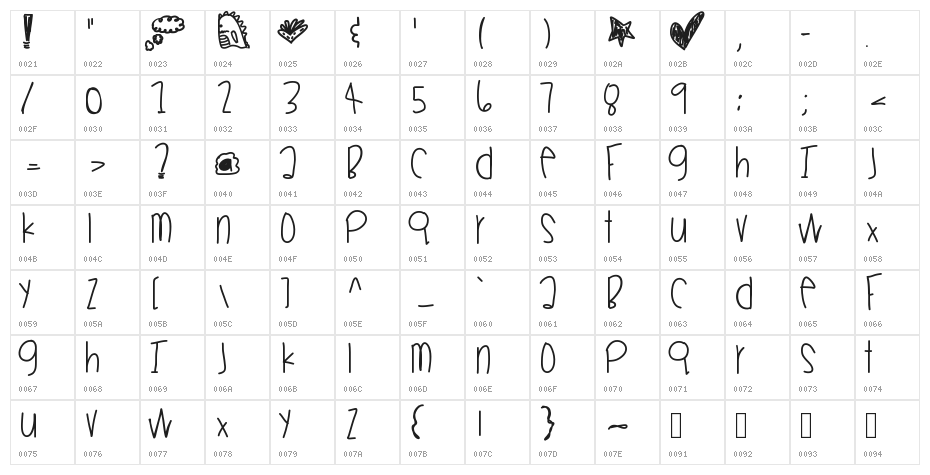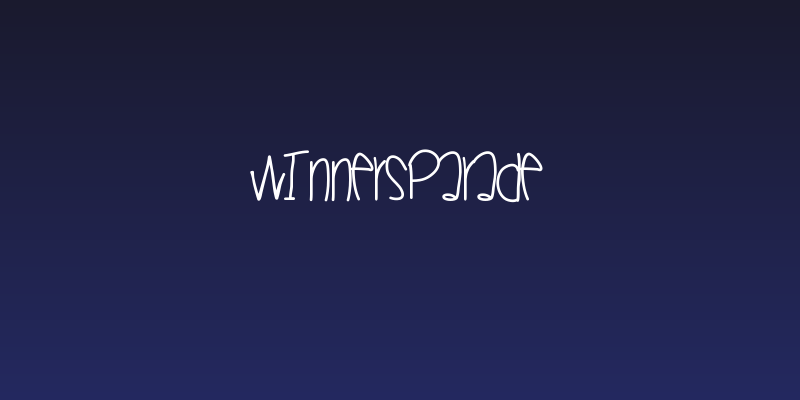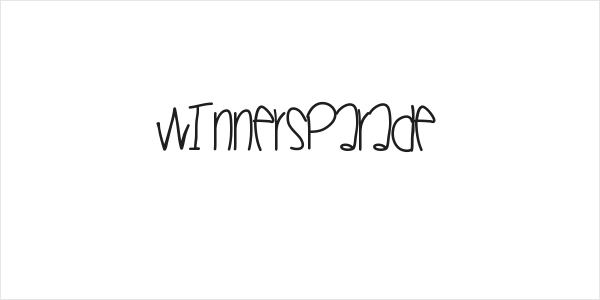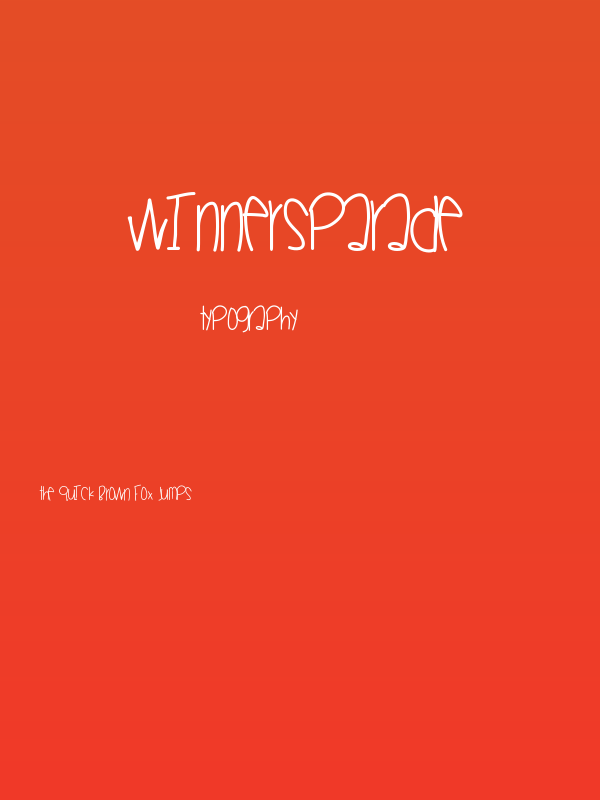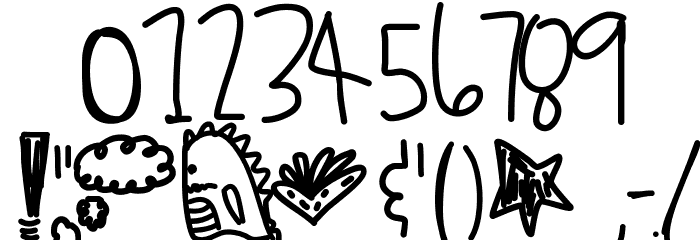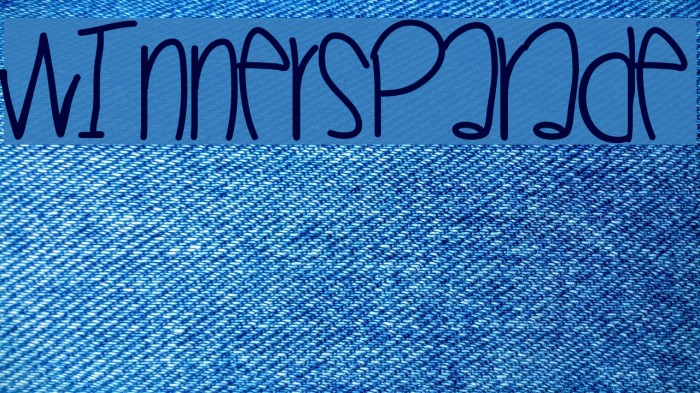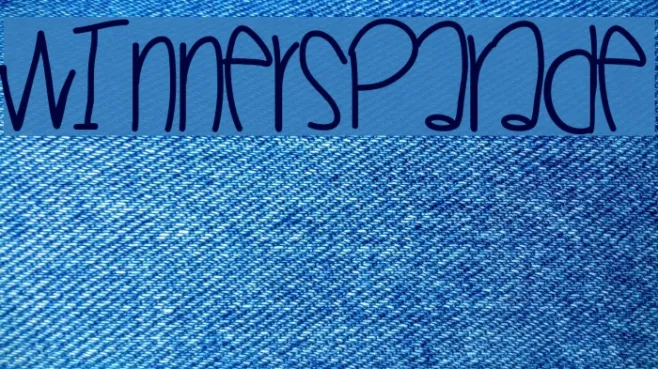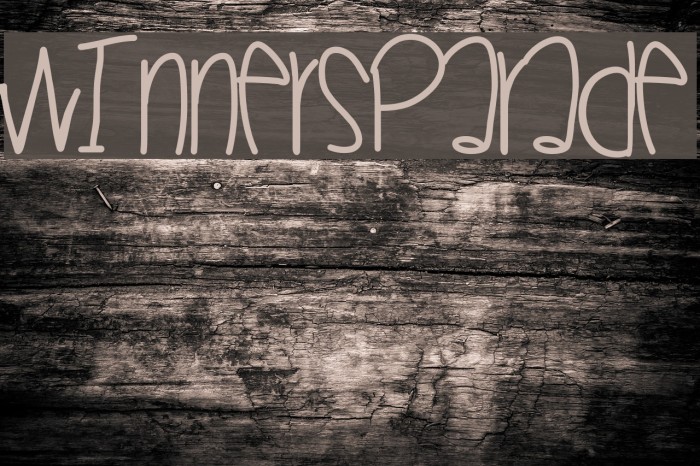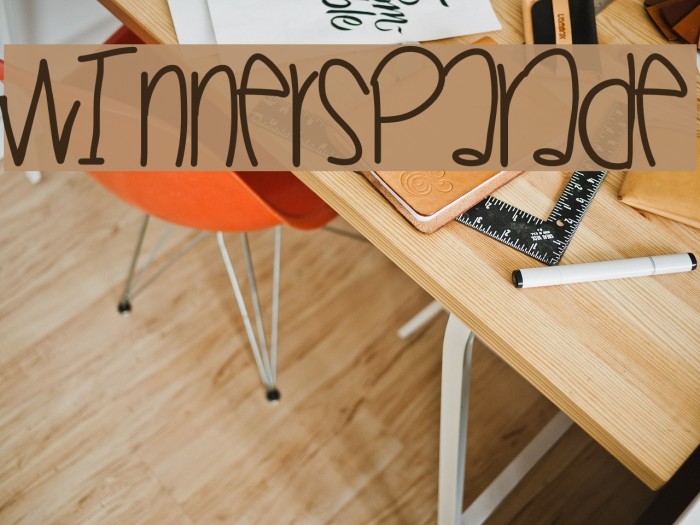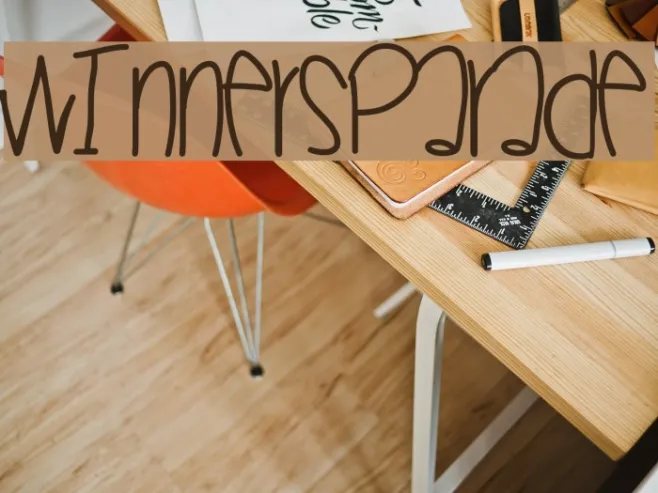
WinnersParade Font
WinnersParade Description
This playful and whimsical font features tall, narrow characters with a hand-drawn appearance. The letters have a casual, informal style, with slightly irregular strokes that add to its charm. The uppercase and lowercase letters maintain a consistent height, contributing to a cohesive look. Numbers and special characters are designed with the same playful aesthetic, making them suitable for creative projects. The font's unique style is perfect for adding a touch of fun and personality to any design.